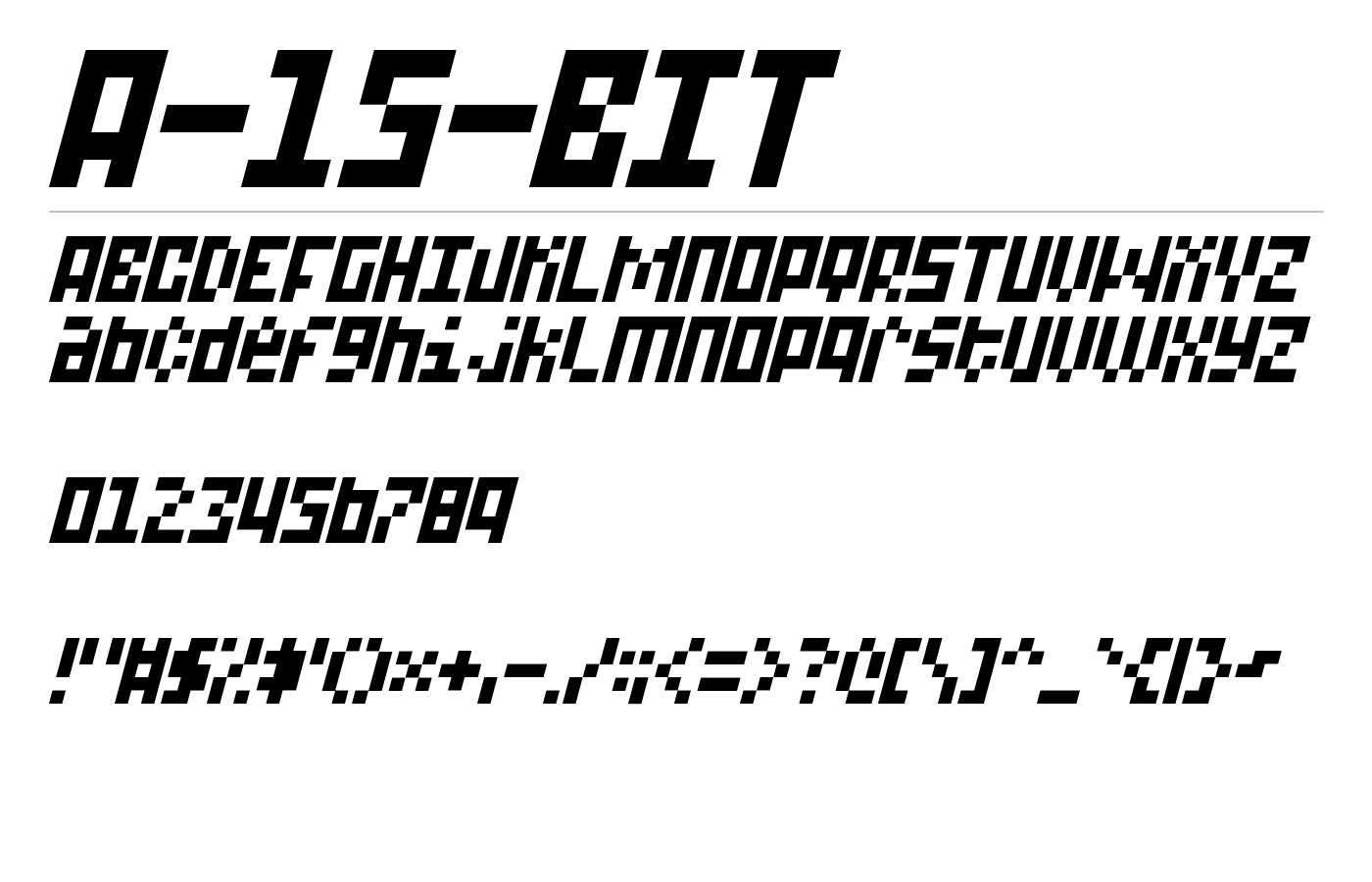
A-15-BIT is a bold, condensed sans serif font with a strong futuristic and digital vibe, characterized by sharp, angular strokes and a slanted italic style that evokes speed and technology. Its geometric letterforms and uniform stroke weight make it ideal for tech branding, gaming, or sci-fi themed designs where a dynamic and modern appearance is desired. This font works best in headlines, logos, and environments that call for a bold, tech-savvy impression.
A-15-BIT Font
About A-15-BIT Font